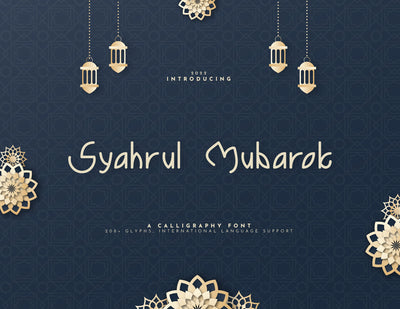
Syahrul Mubarok Calligraphy Font
Syahrul Mubarok is the one of Calligraphy Font. Made in 2022, "Syahrul Mubarok" is inspired from mosque dome. As the mosque dome itself, "Syahrul Mubarok" has special curve and thickness, bringing us Arabian vibes. It is perfect use for poster, social media post, lettering, card, and any design for Ramadhan project. Sharp and irresistible, "Syahrul Mubarok" is perfectly sensuous. It will make your design look pretty and delicate.
- OpenType Features (Stylistic Set)
- Numerals & Punctuations